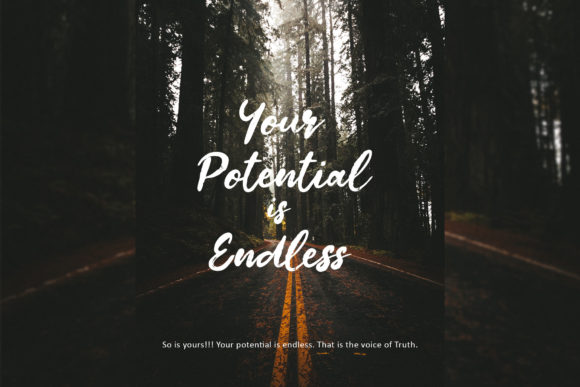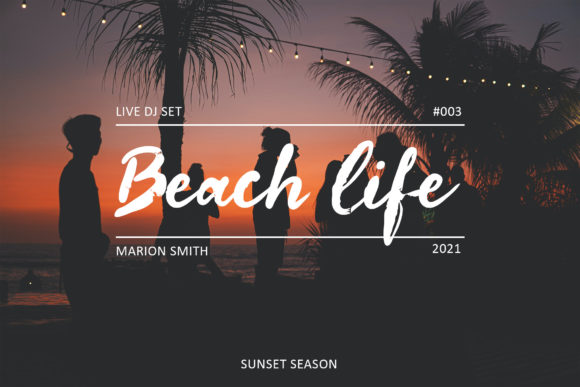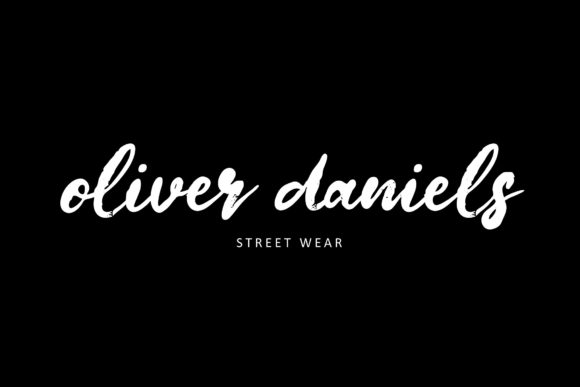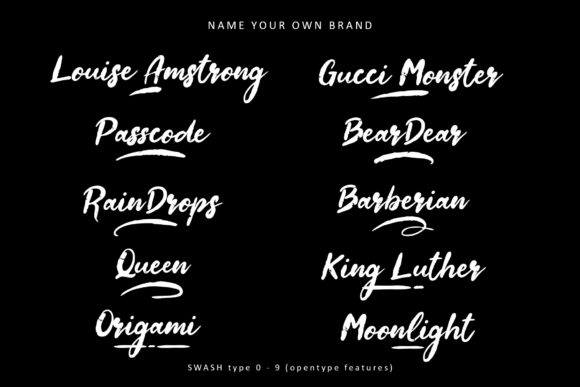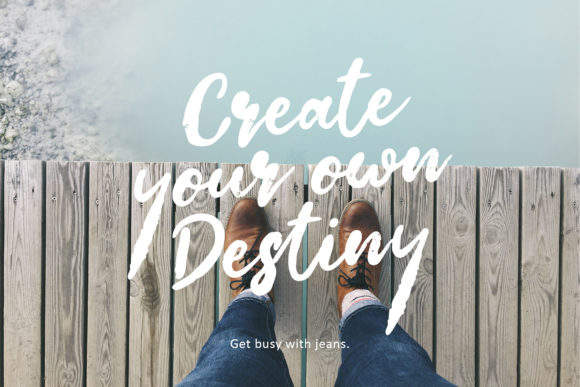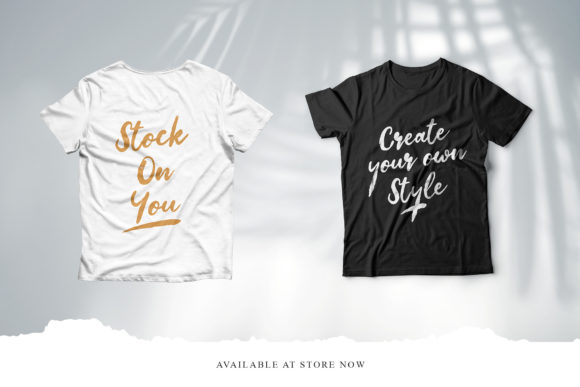
Discover the Charm of Amstel River Font: Elevate Your Designs with this Unique Brushed Script Font
In the world of typography, a font can make or break a design. It’s the perfect blend of style, personality, and functionality that can elevate a creation from ordinary to extraordinary. If you’re a designer, crafter, or simply a creative enthusiast, you’re likely always on the lookout for that special font that will set your work apart. That’s where Amstel River Font comes in – a lovely, unique, and personalized brushed script font that’s sure to become an incredible asset to your font library.
The Beauty of Amstel River Font
Amstel River Font boasts a distinctive, hand-brushed charm that’s perfect for a wide range of design applications. Its unique character and personality shine through in every letter, making it an excellent choice for projects that require a touch of elegance, sophistication, and whimsy. Whether you’re working on a logo, invitation, packaging, or social media graphics, this font is sure to add a dash of personality to your creations.
What Makes Amstel River Font So Special?
So, what sets Amstel River Font apart from other fonts out there? Here are just a few reasons why this font is a must-have for designers and crafters:
- Unique and Personalized: Amstel River Font is a one-of-a-kind, hand-crafted font that exudes a sense of personality and character. Its distinctive style ensures that your designs will stand out from the crowd.
- Brushed Script Style: The font’s brushed script style gives it a beautiful, organic feel that’s perfect for creating inviting, eye-catching designs.
- Versatile: Amstel River Font is incredibly versatile and can be used for a wide range of design applications, from logos and branding to invitations, packaging, and more.
- Elegant and Whimsical: This font strikes the perfect balance between elegance and whimsy, making it suitable for both formal and informal designs.
How to Use Amstel River Font in Your Designs
Amstel River Font is an incredibly versatile font that can be used in a variety of design applications. Here are a few ideas to get you started:
- Logos and Branding: Use Amstel River Font to create a unique and memorable logo that reflects your brand’s personality.
- Invitations and Stationery: Add a touch of elegance and whimsy to your invitations, greeting cards, and stationery with this beautiful font.
- Packaging: Use Amstel River Font to create eye-catching packaging that stands out on store shelves.
- Social Media Graphics: Elevate your social media graphics with this font, perfect for creating engaging and shareable content.
Tips for Getting the Most Out of Amstel River Font
To get the most out of Amstel River Font, here are a few tips to keep in mind:
- Experiment with Colors: Amstel River Font looks stunning in a variety of colors, so don’t be afraid to experiment and find the perfect hue for your design.
- Play with Pairings: Try pairing Amstel River Font with other fonts to create a unique and visually appealing combination.
- Use it Sparingly: While Amstel River Font is a beautiful font, it can be overwhelming if overused. Use it sparingly to create a focal point in your design.
In conclusion, Amstel River Font is a truly unique and special font that’s sure to elevate your designs to the next level. Its distinctive brushed script style, elegant and whimsical personality, and versatility make it an incredible asset to any font library. Whether you’re a designer, crafter, or simply a creative enthusiast, Amstel River Font is a must-have font that’s sure to inspire and delight.